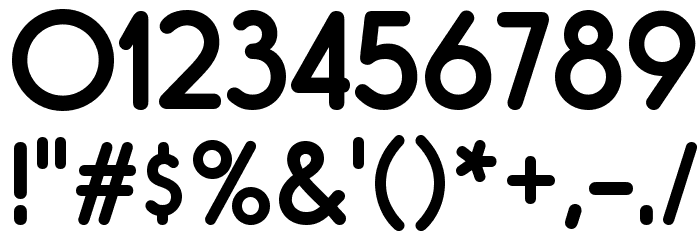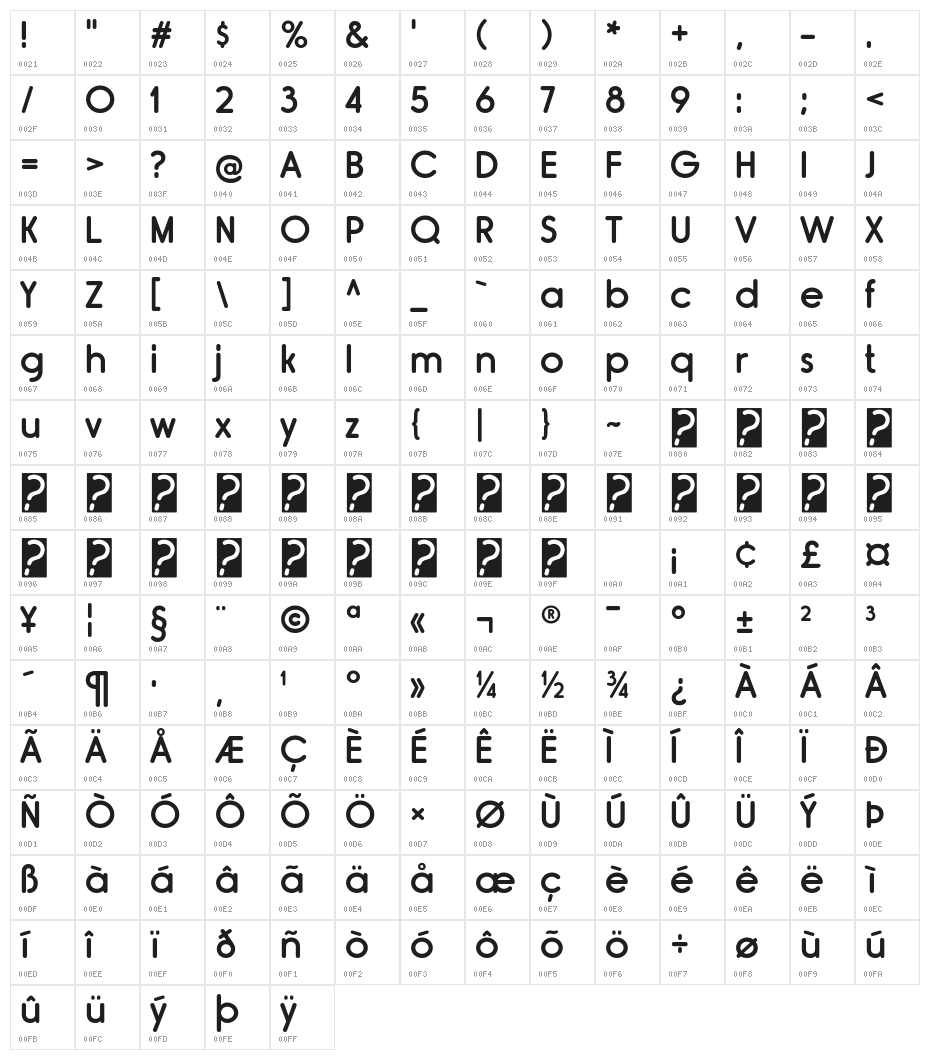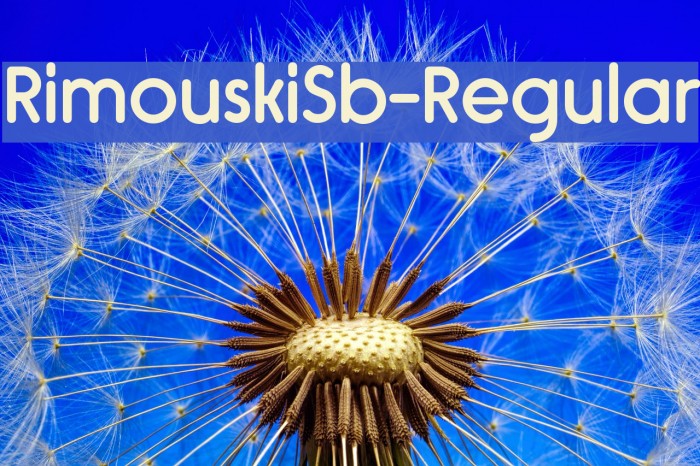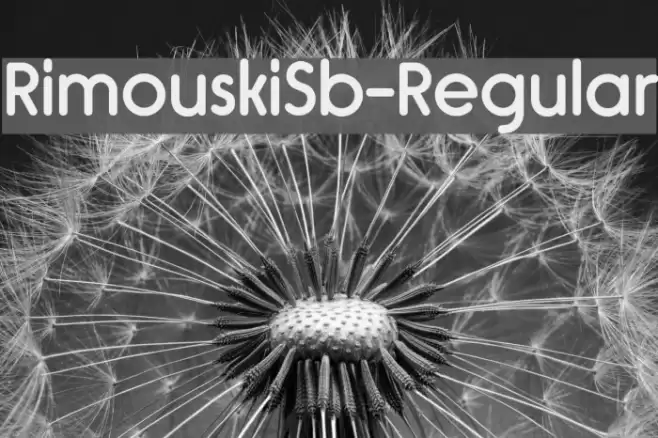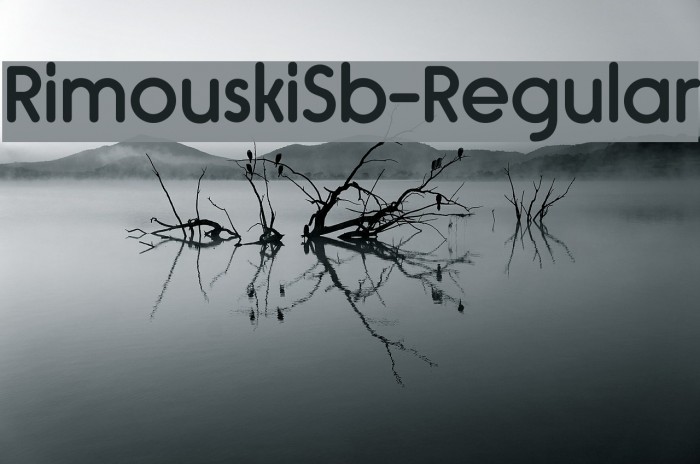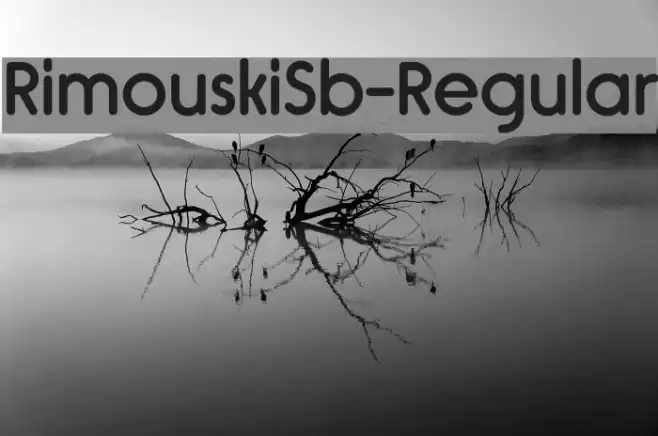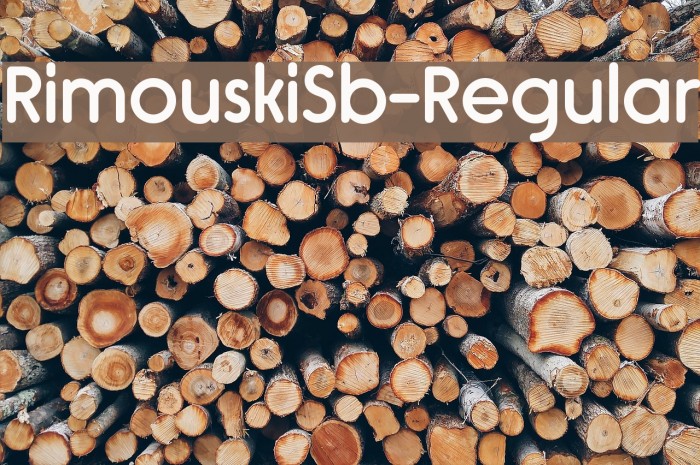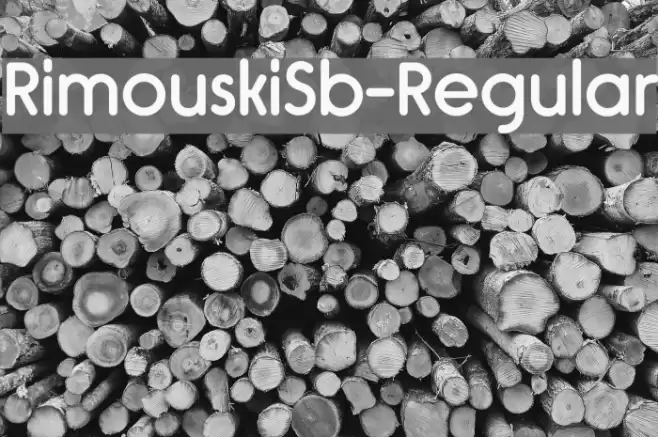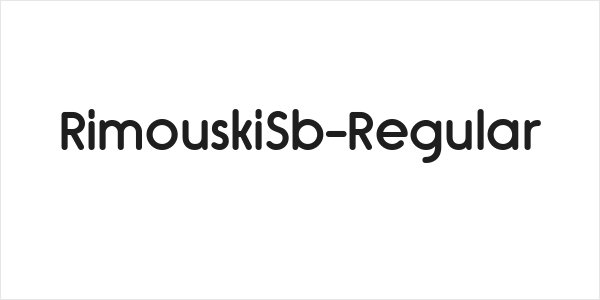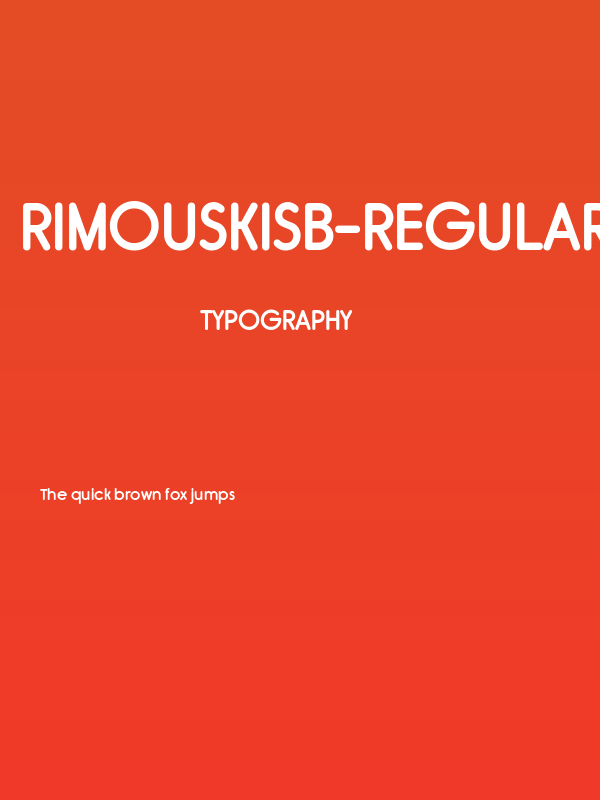
RimouskiSb-Regular Font
RimouskiSb-Regular Description
This font features a clean, rounded sans-serif style with uniform stroke widths that create a harmonious and approachable appearance. The characters are well-proportioned, with a modern aesthetic that emphasizes readability and simplicity. The rounded edges soften the overall look, making it suitable for a variety of design contexts. The numerals and special characters are consistent with the alphabet, maintaining the same rounded and friendly style. This font is versatile, offering a contemporary feel that can be adapted to both digital and print media.
| Proposed Projects | Ideal for branding, web design, user interfaces, and educational materials. |